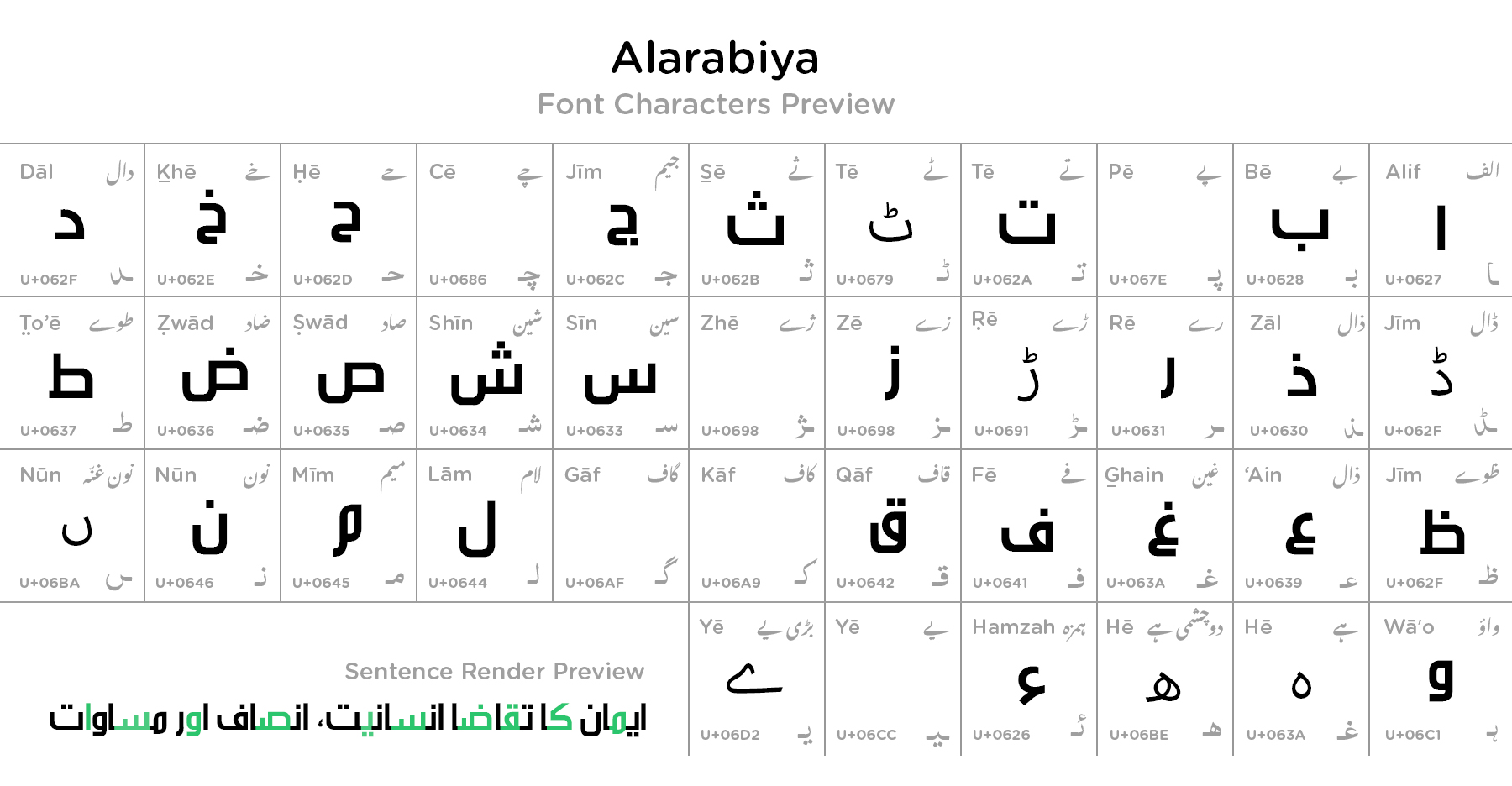
Alarabiya, a modern and bold Arabic font designed by Khalaad Al-Arabeh, displays geometric elegance. It is not a calligraphy font as it does not follow any classical calligraphic scripting language. Launched in 2018, it offers 495 characters and 458 glyphs, providing versatility for various design projects. With a normal weight and medium width, it strikes a perfect balance, ideal for logos, branding, headings, posters, and other creative applications. Its appearance features straight lines, wide letterforms, and contrasting rounded and sharp corners, imparting a distinct geometric charm. Moreover, the font supports Arabic, Latin, and symbols, ensuring flexibility in typography. Its constant thickness throughout the letterform and solid strokes enhance its bold nature, making it best suited for short texts that demand attention. Despite its boldness, the font maintains high legibility on screens due to its clear letterforms. Its Unicode blocks encompass Basic Latin, Latin-1 Supplement, Latin Extended-A, Latin Extended-B, Arabic, and more, ensuring compatibility with various text encoding standards. Whether used for impactful headlines or creative branding elements, Alarabiya adds a modern and stylish touch to any design, making it a preferred choice for designers seeking bold and geometric Arabic typography.